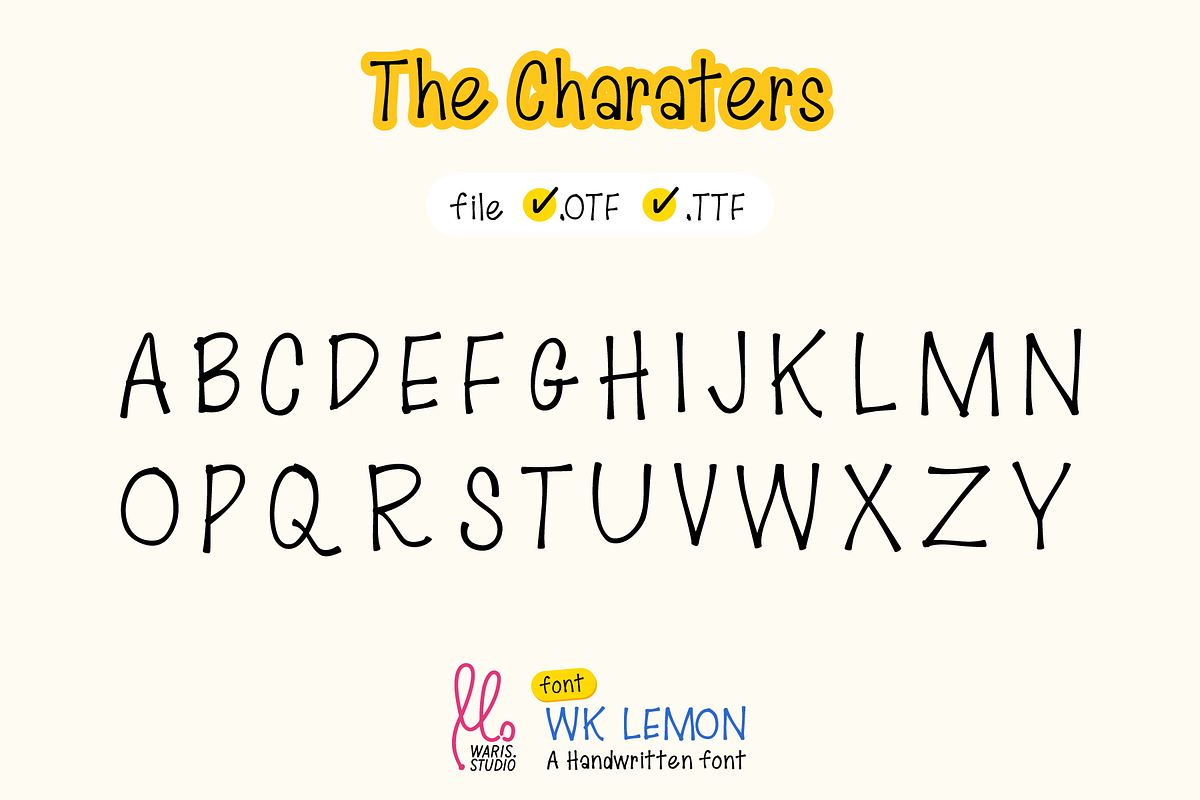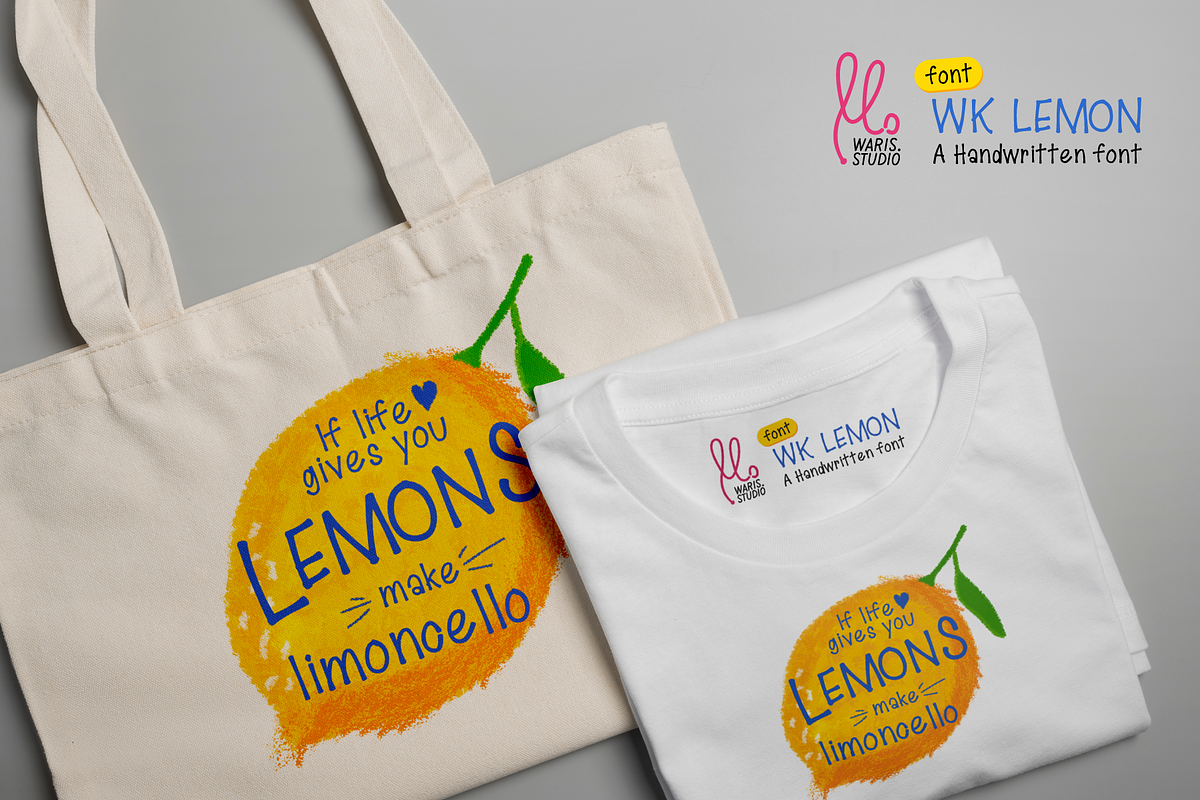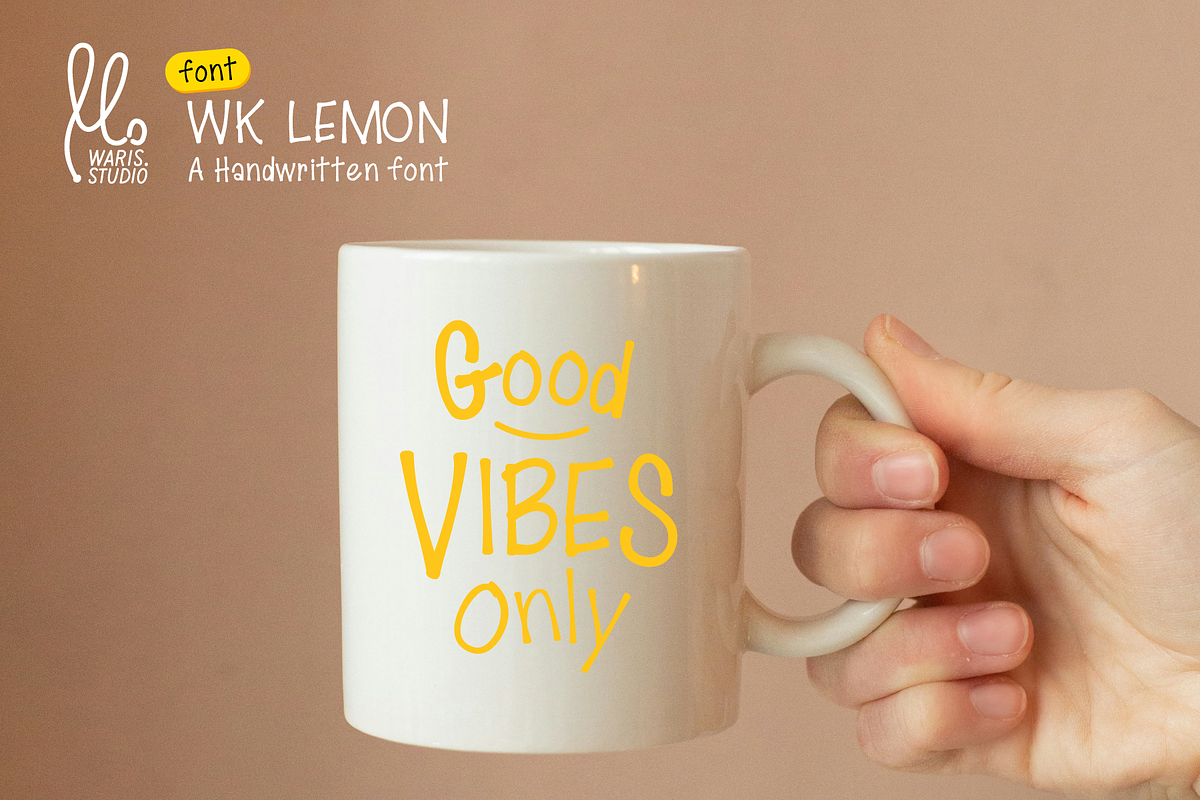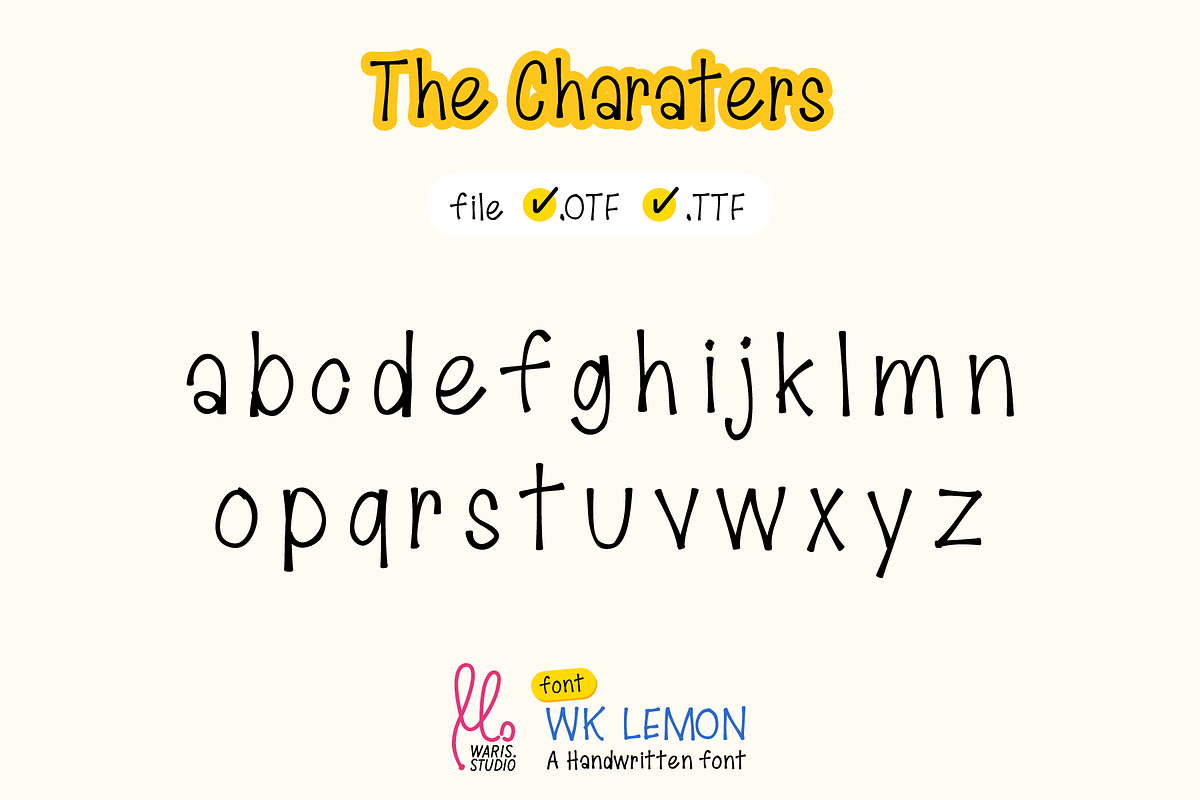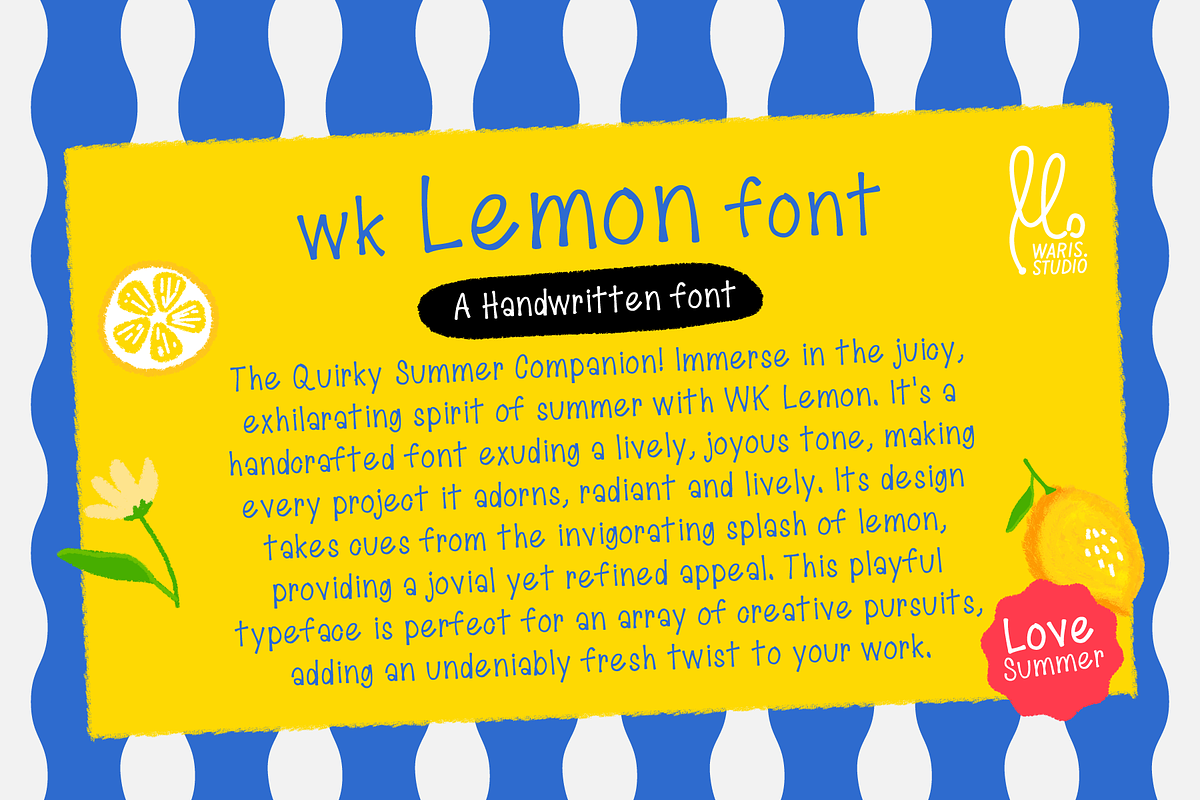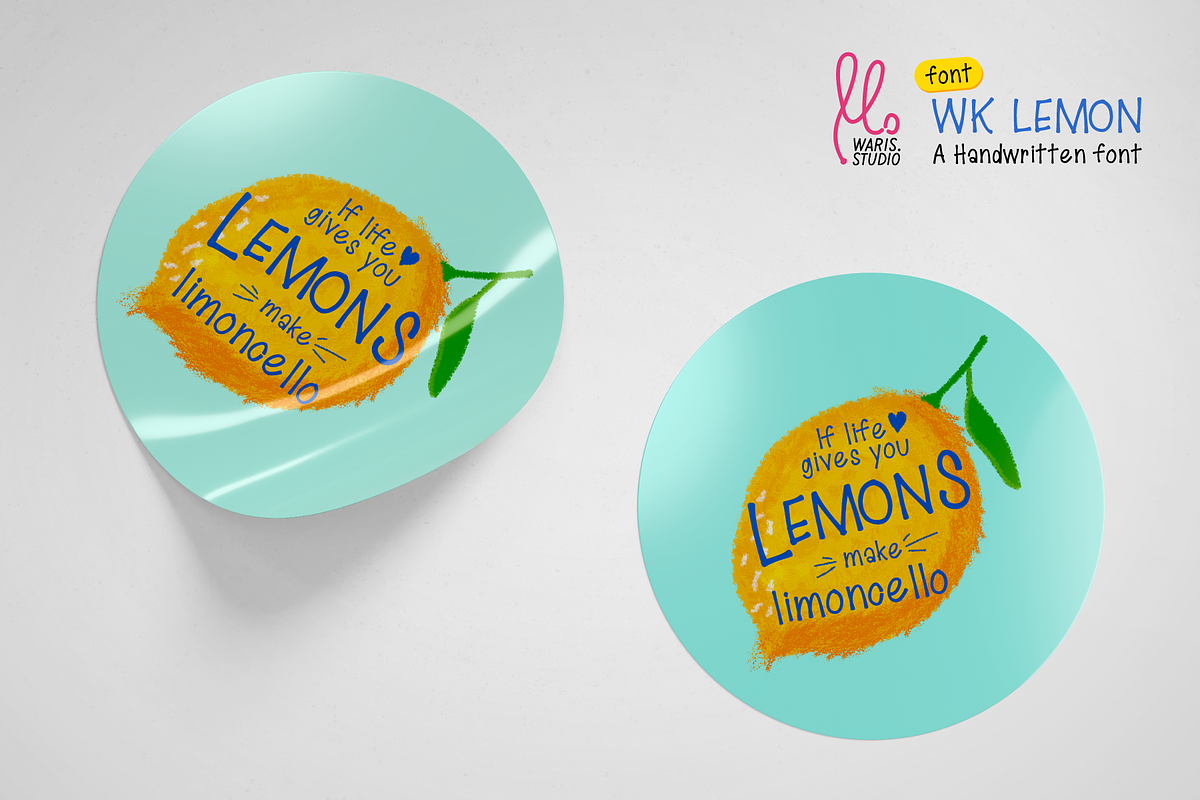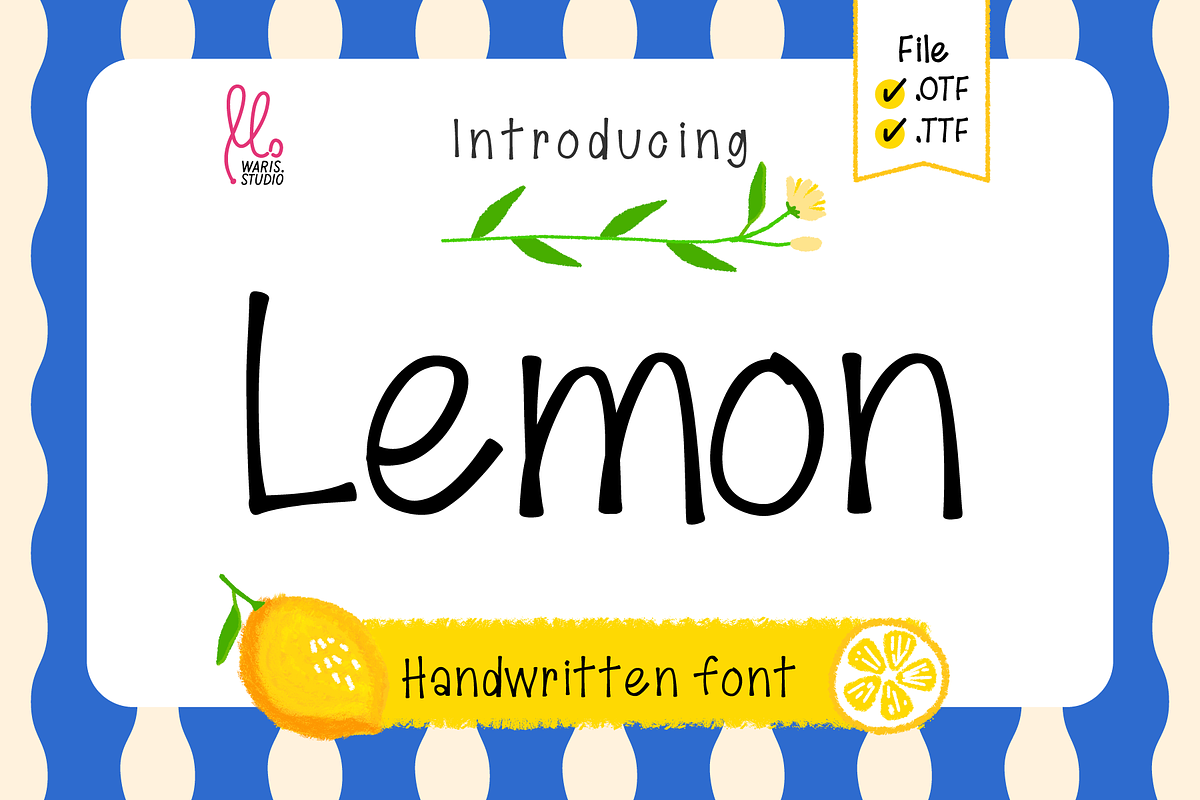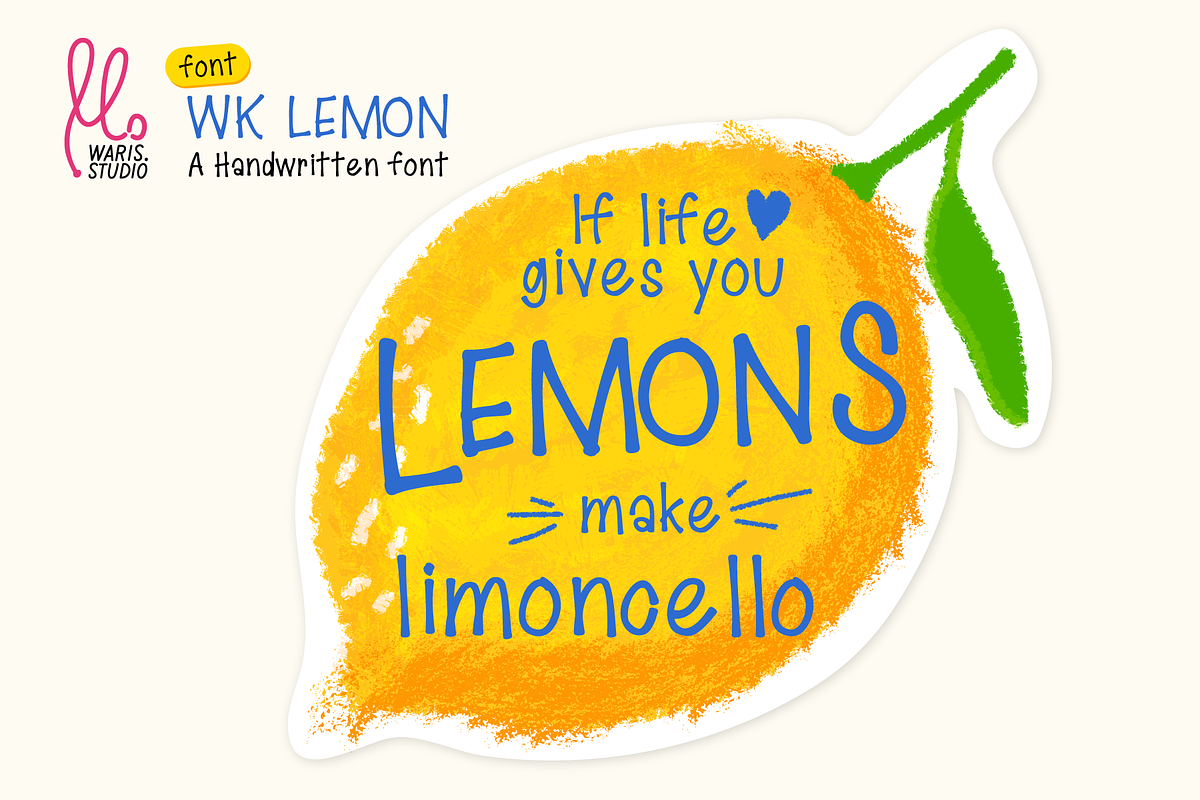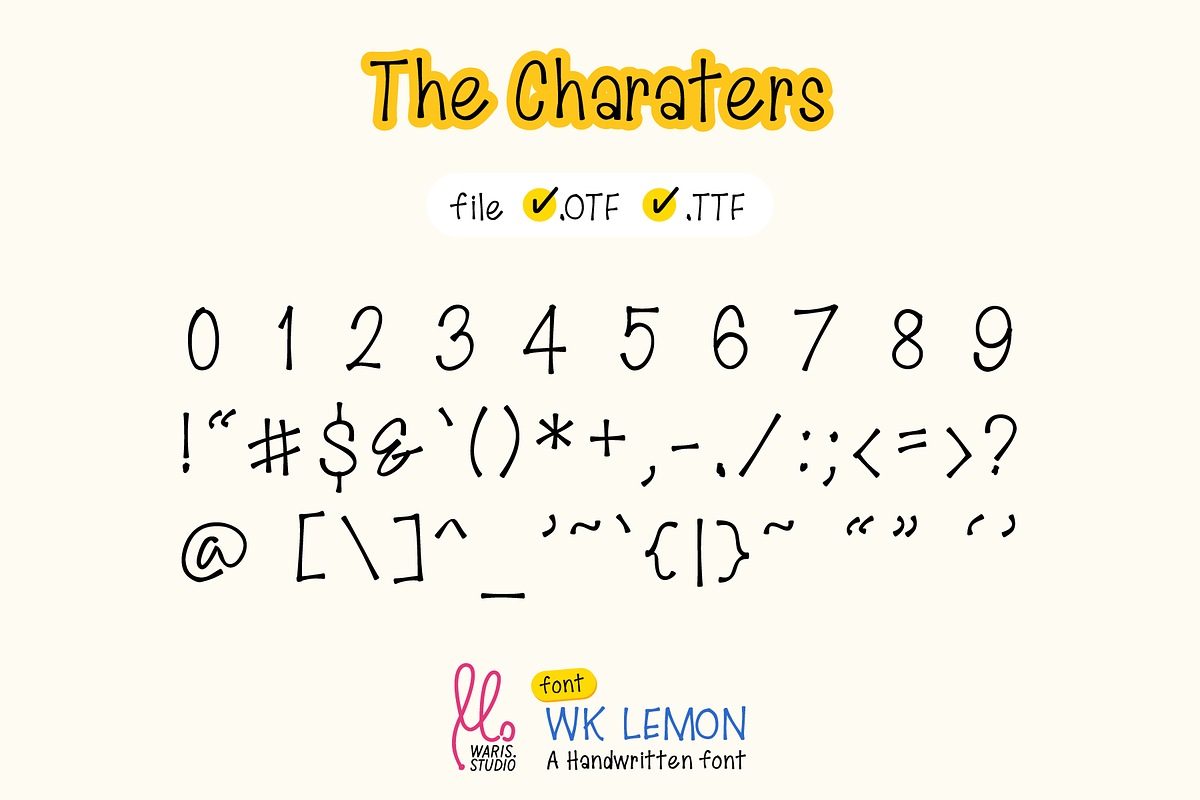
Lemon - Modern & Organic Handwritten
Introducing WK Lemon Font: The Quirky Summer Companion! Immerse in the juicy, exhilarating spirit of summer with WK Lemon. It's a handcrafted font exuding a lively, joyous tone, making every project it adorns, radiant and lively. Its design takes cues from the invigorating splash of lemon, providing a jovial yet refined appeal. This playful typeface is perfect for an array of creative pursuits, adding an undeniably fresh twist to your work.